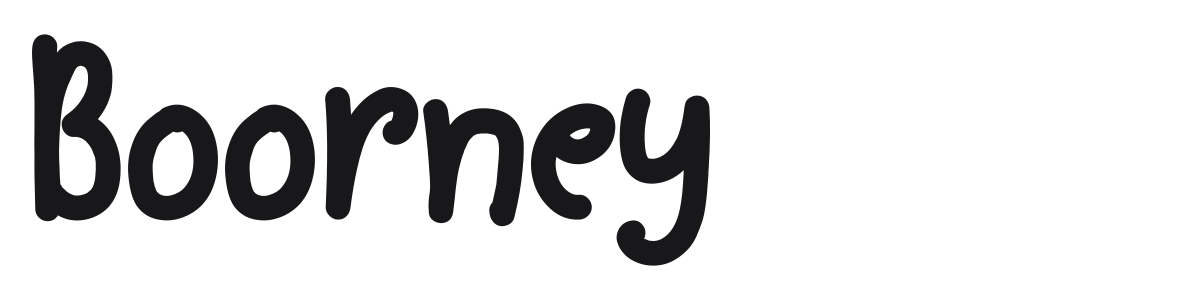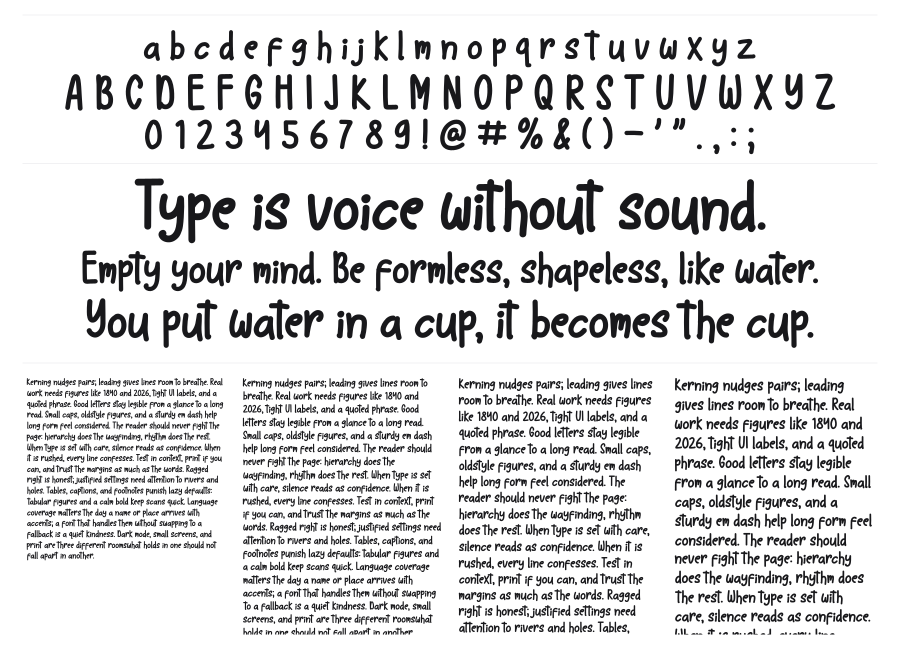
Boorney
Boorney is a bold, hand-drawn casual script with thick rounded strokes and a bouncy, informal energy. The slightly irregular baseline and chunky letterforms give it an authentic marker-written feel without feeling sloppy. It works well at large sizes for logos, labels, craft projects, and anything that needs a warm, lighthearted personality.